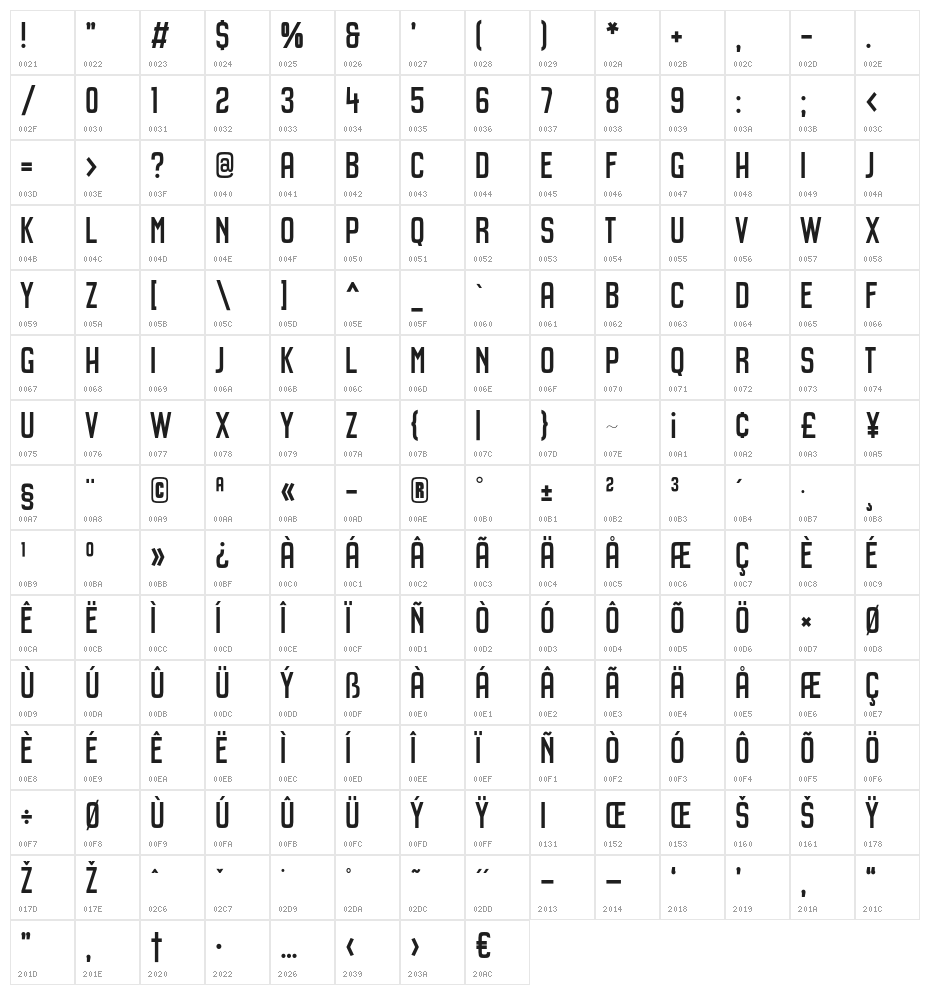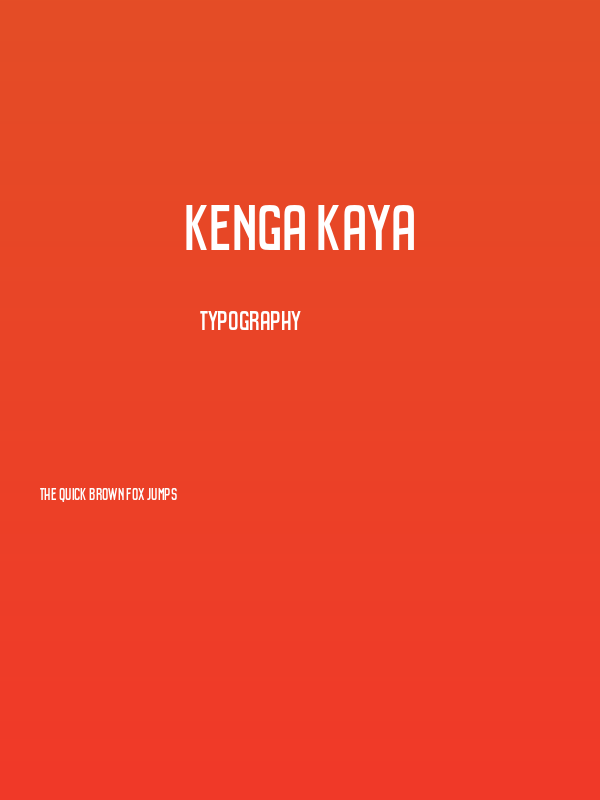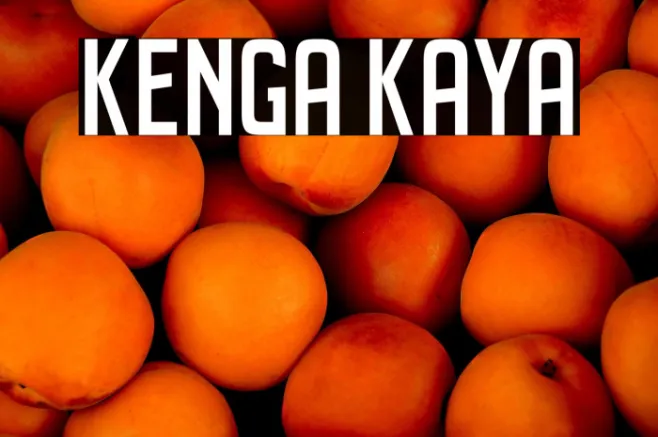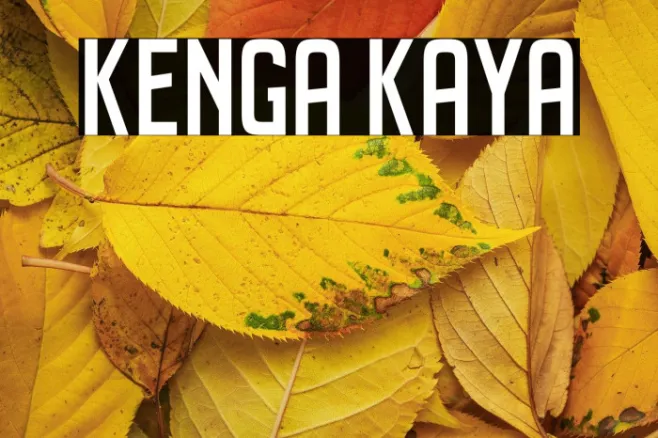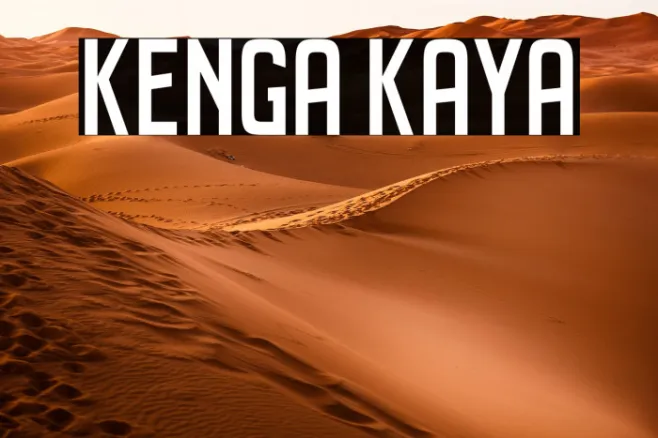
Kenga Kaya Font
Kenga Kaya Description
This font features a bold and striking design with a modern aesthetic. The characters are tall and narrow, giving them a condensed appearance that maximizes vertical space. The strokes are consistent in thickness, providing a uniform look across all characters. The uppercase letters are particularly prominent, with sharp angles and clean lines that convey a sense of strength and stability. The numerals and special characters maintain the same boldness, ensuring readability and visual impact. This font is well-suited for projects that require a strong, contemporary look.
| Proposed Projects | Ideal for branding, advertising, poster design, and headlines where a strong visual impact is needed. |